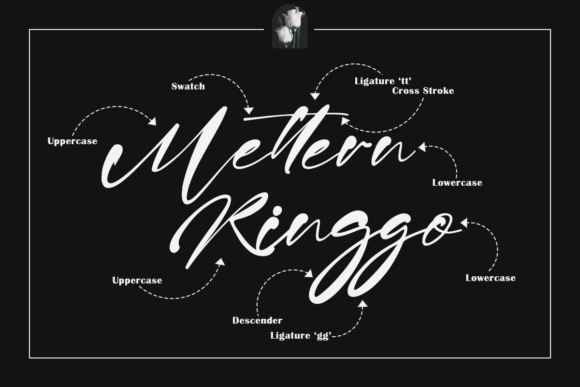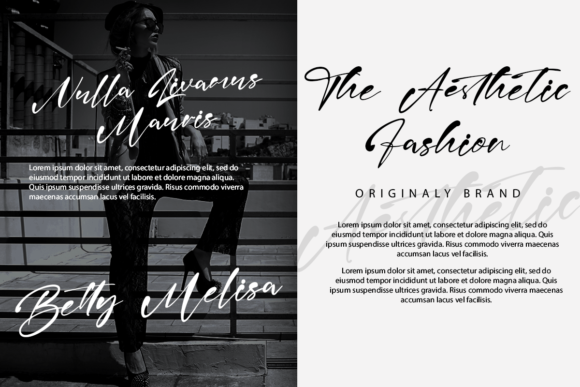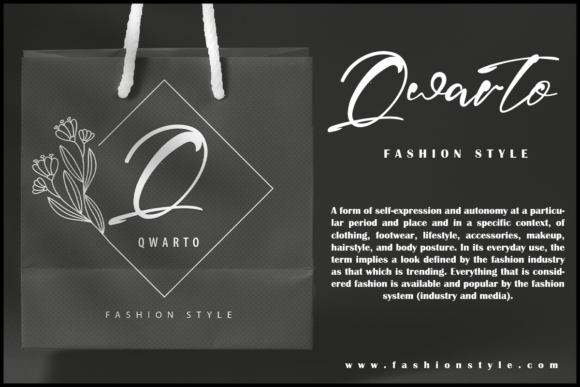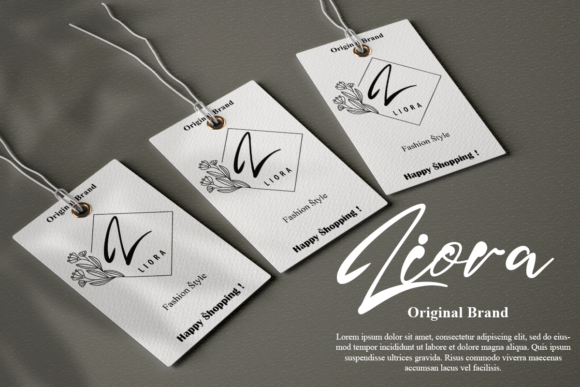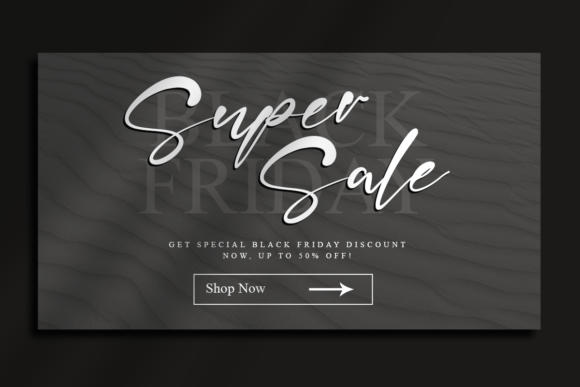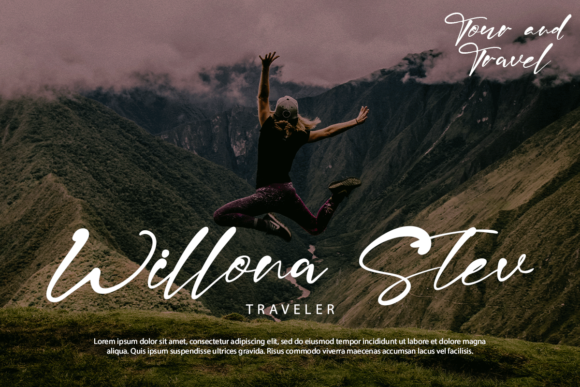
Haggerty Font: The Perfect Choice for Romantic and Delicate Designs
Haggerty is a delicate and stylish script font that has gained popularity among designers and crafters for its romantic and lovely appearance. This beautiful font is perfect for adding a touch of elegance to love letters, wedding invitations, and various design ideas. In this article, we will explore the features and benefits of the Haggerty font and how it can elevate your designs to the next level.
What is Haggerty Font?
Haggerty is a script font that boasts a delicate and stylish appearance, making it ideal for designs that require a touch of sophistication and romance. The font features beautiful swashes and flourishes that add to its elegance, making it perfect for use in wedding invitations, love letters, and other romantic designs.
Key Features of Haggerty Font
• Delicate and Stylish: Haggerty font is characterized by its delicate and stylish appearance, making it perfect for designs that require a touch of elegance.
• Romantic and Lovely: The font’s romantic and lovely appearance makes it ideal for use in wedding invitations, love letters, and other romantic designs.
• Beautiful Swashes and Flourishes: Haggerty font features beautiful swashes and flourishes that add to its elegance and sophistication.
• Easy to Read: Despite its delicate appearance, Haggerty font is easy to read, making it perfect for use in designs that require a clear and legible font.
Benefits of Using Haggerty Font
Using Haggerty font in your designs can have numerous benefits, including:
• Adding Elegance and Sophistication: Haggerty font can add a touch of elegance and sophistication to your designs, making them stand out from the crowd.
• Creating a Romantic Atmosphere: The font’s romantic and lovely appearance can help create a romantic atmosphere in your designs, making them perfect for wedding invitations, love letters, and other romantic designs.
• Enhancing Readability: Despite its delicate appearance, Haggerty font is easy to read, making it perfect for use in designs that require a clear and legible font.
How to Use Haggerty Font in Your Designs
Using Haggerty font in your designs is easy and straightforward. Here are some tips to get you started:
• Pair it with Other Fonts: Haggerty font can be paired with other fonts to create a unique and visually appealing design.
• Use it for Headings and Titles: The font’s delicate and stylish appearance makes it perfect for use in headings and titles.
• Add Swashes and Flourishes: Haggerty font features beautiful swashes and flourishes that can add to its elegance and sophistication.
In conclusion, Haggerty font is a beautiful and elegant script font that is perfect for adding a touch of romance and sophistication to your designs. Its delicate and stylish appearance, beautiful swashes and flourishes, and ease of readability make it an ideal choice for designers and crafters. Whether you’re creating wedding invitations, love letters, or other romantic designs, Haggerty font is sure to elevate your designs to the next level.
Tips and Tricks for Using Haggerty Font
Here are some tips and tricks for using Haggerty font in your designs:
• Experiment with Different Sizes: Haggerty font can be used in a variety of sizes, from small and delicate to large and bold.
• Use it in Combination with Other Design Elements: Haggerty font can be used in combination with other design elements, such as images and graphics, to create a visually appealing design.
• Pay Attention to Kerning and Spacing: Paying attention to kerning and spacing can help ensure that your design looks professional and polished.